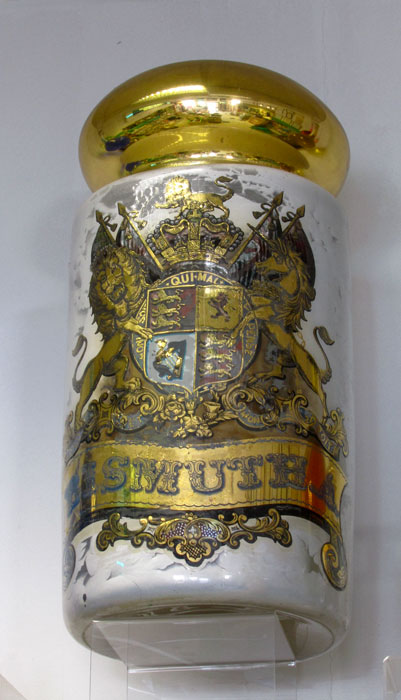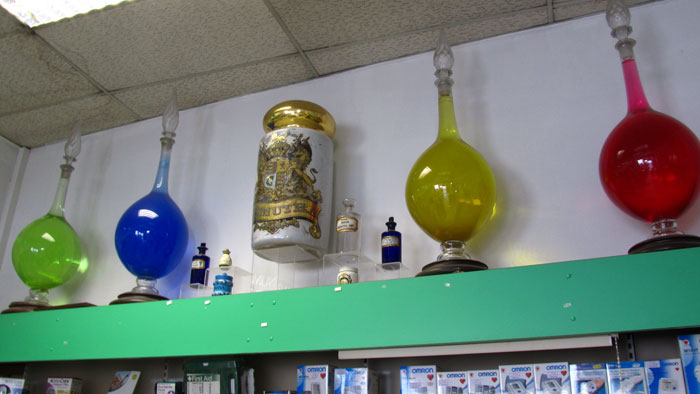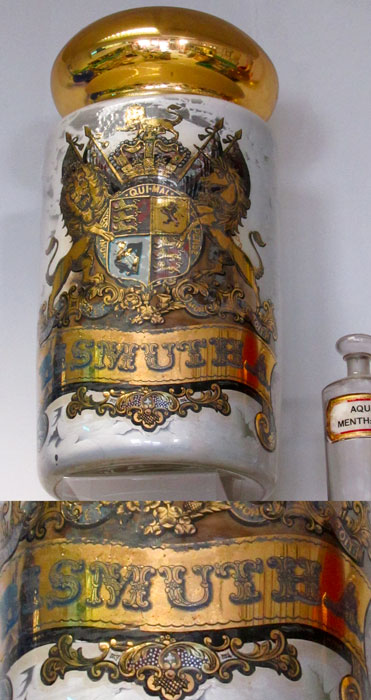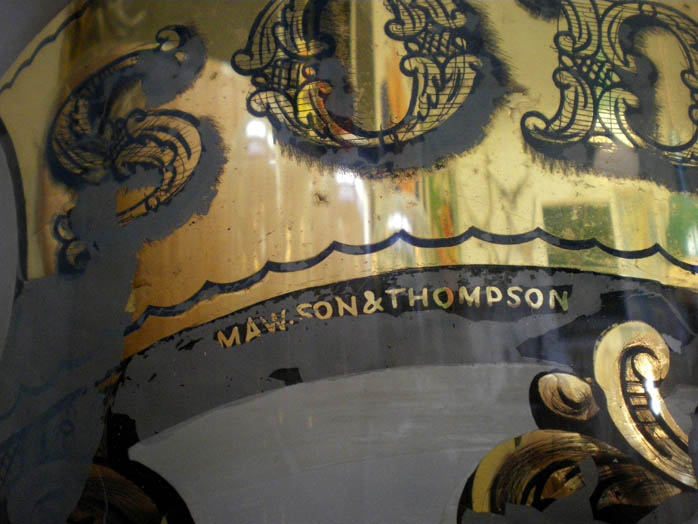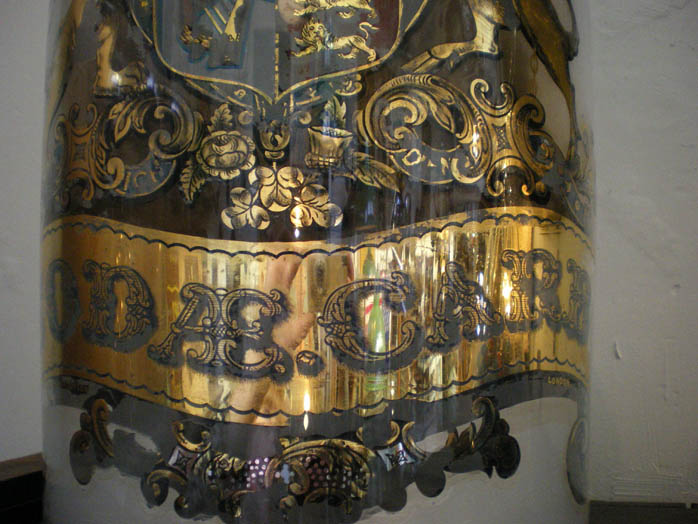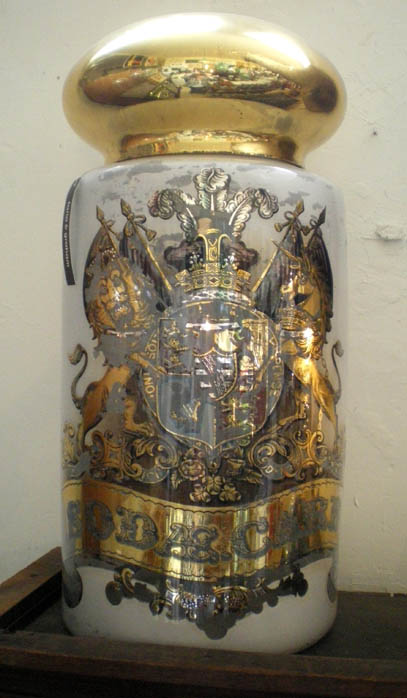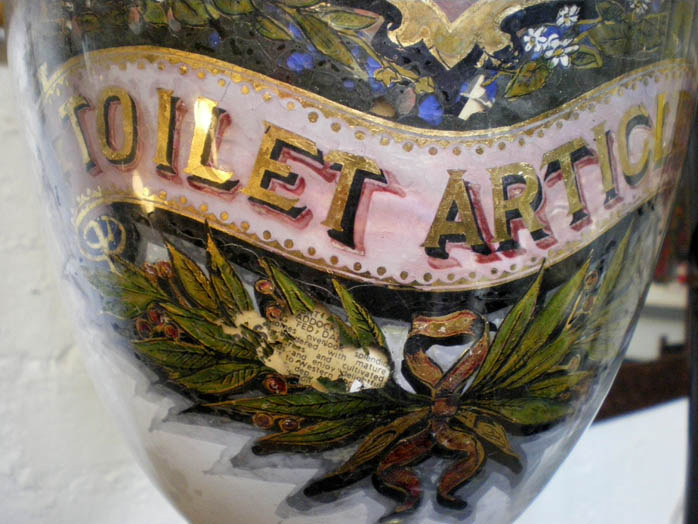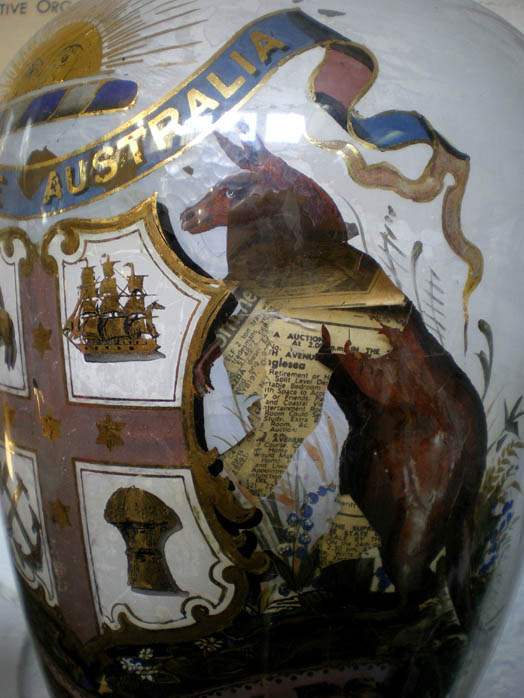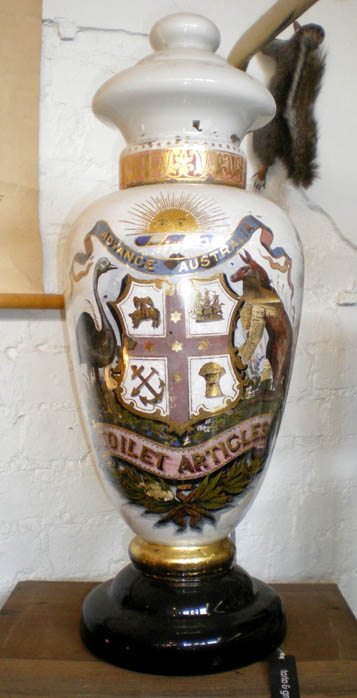
Pharmacy Jars
This is a follow up of Bruce's post about Pharmacy Jars.
The primary purpose of the jars was to store medication (powders, herbs, roots and sometimes pills) at pharmacies, physician offices and apothecaries. While the jars are no longer used for practical purposes, many are considered coveted artwork and are highly collectible. This one has an opaque glass body with a gilded glass mushroom shaped top The jar is worth £5000, but in need of some repair as you can see. I like the look of peeling paint though but I certainly do not want to get involved in restoring her.
Nice to view thats it... This chemist reminds me of Ricks Old Shop. I wonder what happened to the two he had at Fine Gold. Any one know?
Re: Pharmacy Jars
Wow, another great example.
This one seems to be more cleanly executed. Did you study it closely Dave? I'm assuming it's hand-painted, but being so neat, it makes me wonder if it is hand-done or possibly done using a decal or some other printing technique to do the black linework.
The Rhubarb jar I posted was more amatuerish in execution and when I looked at it, it was clearly hand-done. The design was complex but you could see it was all hand-painted, water gilded and hand-engraved from the inside.
It's hard to imagine that people were doing this type of thing on a daily basis producing large numbers of these display jars. But then again, there is an entire industry producing Chinese snuff bottles that are beautifully reverse painted with very fine designs.
I found this interesting explanation http://www.drugstoremuseum.com/sections ... 20&level=2 of "labels under glass". It seems with many apothecary bottles, like these smaller more common ones, the design was done on the outside and then a thin sheet of glass applied over it for protection.
Here's another great example
The description says it's done on the inside, but where the gilding is damaged, how is it possible to still see the background color behind it????
Re: Pharmacy Jars
These are beauties Bruce, I think they are on the outside also. I forgot to mention that the jar I posted was made using a water slide transfer Bruce. My first post crashed on me so I re- wrote this one.
Most of them were black lines either painted by hand or screened then slide into place. Finally handpainting and gilding was done afterwards. I suspect some were completely hand done, but up close on the Jar I posted you would need to be about 6 inchs tall with a ladder to get in and work on the detail inside this jar. Then you would be up and down that ladder to get to the rest of the work at the top, plus you would find it hard to breath in there ,would feel like a fish by the time you were finished.
The letters are perfect on this jar, there's no way you could just lean your arm in this jar and excute work like this but i may be wrong...
They were clever people those Victorians..
Most of them were black lines either painted by hand or screened then slide into place. Finally handpainting and gilding was done afterwards. I suspect some were completely hand done, but up close on the Jar I posted you would need to be about 6 inchs tall with a ladder to get in and work on the detail inside this jar. Then you would be up and down that ladder to get to the rest of the work at the top, plus you would find it hard to breath in there ,would feel like a fish by the time you were finished.
The letters are perfect on this jar, there's no way you could just lean your arm in this jar and excute work like this but i may be wrong...
They were clever people those Victorians..
Re: Pharmacy Jars
I am HIGHLY suspicious that this work was entirely done by hand on the inside of the jar. I would like to see these jars in person and REALLY get a good look.
Just on these two jars alone, the area at the top of the design where the grains of wheat have the fine pointed tufts, the curve of the neck inside and the angle that you would have to hold the brush while viewing each stroke (and what!... upside down as well!) In
my opinion (Doubting Thomas, that's me all the way) there is something missing as to exactly how these treatments were done.
Rick had at least one of these jars up high in his shop for repair, and I am certain that he never got involved in attempting to repair it although we discussed it several times.
To see these jars, and inspect where the gold is missing and the gold peeks though would tell.
I think they look like the gold is in the inside, not the outside, as there would be a shadow edge between the gold on the outside and the paint on the inside.
I think the gold and the crosshatch shading may have been applied as a decal or a transfer to the inside of the jar. In doing this some fragments of the transfer were folded or marred damaging the gold. This was ignored or accepted as part of the difficult process and the backing paint was then applied and is therefore visible where the gold was compromised.
I just find it TOO hard to believe that a person could get all those fine shading hatchmarks to be so perfect while doing them top to bottom with their wrist "crooked" in a jar.
But that's just me. And I'm sure China plate decorators were using transfers at this time, so the method was well known.
Pat (aka D. Thomas)
Just on these two jars alone, the area at the top of the design where the grains of wheat have the fine pointed tufts, the curve of the neck inside and the angle that you would have to hold the brush while viewing each stroke (and what!... upside down as well!) In
my opinion (Doubting Thomas, that's me all the way) there is something missing as to exactly how these treatments were done.
Rick had at least one of these jars up high in his shop for repair, and I am certain that he never got involved in attempting to repair it although we discussed it several times.
To see these jars, and inspect where the gold is missing and the gold peeks though would tell.
I think they look like the gold is in the inside, not the outside, as there would be a shadow edge between the gold on the outside and the paint on the inside.
I think the gold and the crosshatch shading may have been applied as a decal or a transfer to the inside of the jar. In doing this some fragments of the transfer were folded or marred damaging the gold. This was ignored or accepted as part of the difficult process and the backing paint was then applied and is therefore visible where the gold was compromised.
I just find it TOO hard to believe that a person could get all those fine shading hatchmarks to be so perfect while doing them top to bottom with their wrist "crooked" in a jar.
But that's just me. And I'm sure China plate decorators were using transfers at this time, so the method was well known.
Pat (aka D. Thomas)
Re: Pharmacy Jars
The Jar I posted Pat has all the work inside, I have seen several in chemists around Devon and the London area and all of them had graphics painted on the inside.
I will have to agree I find it hard to see them placing there arm inside and painting this amount of detail. Next time I see the jar I will look for a join. I wonder if the whole graphic was made and slide into place through the mushroom shaped head and then applied using gelatine to stick it to the glass. There may have been a process of laying the gold and paint down front ways round onto a decal sheet and then removing it the same way as a waterslide transfer .Finally painting the inside with a big old brush and some white lead paint. I suspect it was easier than we are thinking as there were lots of them... just a thought.
Re: Pharmacy Jars
I think it was easier than we think, and believe most were done as water slide transfers; that in no way is meant to diminish the quality and talent it took to complete though.
Rick literally had reams of water slide transfers in the shop under his bench, many all the same. I sometimes wonder if they were from the Palm Transfer company. Most of the sheets were of animals: dogs, sheep, horses and a few scrolls, but they were all transfers.
I'll look through the catalog and see what they offer, but it was a company that's sole product was water slide transfers. The pharmacy bottles are obviously at the top of the scale for that work, and probably achieved much through screen printed transfers and hand work.
Rick had about a half dozen bottles in a cabinet in the shop, Paul said they were on loan to Rick, and had been returned to the owner.
As far as the little men with ladders, that would mean they were done in Ireland as leprechauns didn't migrate that far down into the UK. Either that our you're working at consuming liquid in bottles, but not as fancy.
Whoever they were, they had a lot more talent, and a lot more patience than I!
For more information on water slide transfers, check the green pages under Rick's techniques. I remember Lee Littlewood wrote a how to paper which should be posted there.
Rick literally had reams of water slide transfers in the shop under his bench, many all the same. I sometimes wonder if they were from the Palm Transfer company. Most of the sheets were of animals: dogs, sheep, horses and a few scrolls, but they were all transfers.
I'll look through the catalog and see what they offer, but it was a company that's sole product was water slide transfers. The pharmacy bottles are obviously at the top of the scale for that work, and probably achieved much through screen printed transfers and hand work.
Rick had about a half dozen bottles in a cabinet in the shop, Paul said they were on loan to Rick, and had been returned to the owner.
As far as the little men with ladders, that would mean they were done in Ireland as leprechauns didn't migrate that far down into the UK. Either that our you're working at consuming liquid in bottles, but not as fancy.
Whoever they were, they had a lot more talent, and a lot more patience than I!
For more information on water slide transfers, check the green pages under Rick's techniques. I remember Lee Littlewood wrote a how to paper which should be posted there.
Re: Pharmacy Jars
Dave,
I CANNOT make myself BELIEVE that someone painted those fine details that neat and clean by reaching into a restricted opening. I will allow that the larger color background areas are most likely added inside the jar by hand.
I THINK that the black line and gold leaf were most likely painted directly in a normal fashiononto a thin layer(film) of fish glue or gum arabic and then applied to the inside of the glass.
Afterward, the exposed thin film was sponged away leaving the black lines and gold. Next would follow the infill of the banners and such, and last, the paint color to back up the inside of the entire jar.
I CANNOT make myself BELIEVE that someone painted those fine details that neat and clean by reaching into a restricted opening. I will allow that the larger color background areas are most likely added inside the jar by hand.
I THINK that the black line and gold leaf were most likely painted directly in a normal fashiononto a thin layer(film) of fish glue or gum arabic and then applied to the inside of the glass.
Afterward, the exposed thin film was sponged away leaving the black lines and gold. Next would follow the infill of the banners and such, and last, the paint color to back up the inside of the entire jar.
Re: Pharmacy Jars
Pat, I think you are right.
The French ones definitely look like decals to me. They are both identical, the cross-hatching etc. And also the Bismuth jar that started this post is too. Dave said so, plus I found more proof in it's sibling, shown below (same crest design, different word).
But the one I originally posted was definitely hand-done. I looked at it closely. Furthermore, I have a Chinese snuff bottle that has very fine details hand-painted and the neck is only about 10mm wide. They have brushes with a bent handle so it can be done with patience and a touch of masochism.
So I guess, the Victorians were using all these techniques. Sometimes transfers, sometimes hand-painted accordingly to the needs of the job.
I found some further info and a lucky find...a couple of jars for sale at a dealer in my own city! I will go there next week and take a close look for myself and try to see how they were done. They sent me some photos. I've had to shrink them for this board, but here are some shots, and the text of her email to me.
-------
They are both for sale. The Toilet Articles jar is $5500. It is
pre-Federation and came from the estate of an apothecary jar collector.
Apart from that I'm afraid I can't tell you much else. Unfortunately it has
been stuffed with newspaper which has not helped its flaky innards.
The Soda Carb jar is $3200 and sadly has suffered more paint loss than the
other one. Still very lovely though. It is made by Mawson & Thompson who
were London makers of medical related things, but I don't know any more
about them unfortunately.
A recent customer who is a keen collector of all things medical told me that
all these jars were made in England to whatever specification and shipped
over here. Hence the Australia-themed ones etc. It's amazing to think of
the process involved 100 or more years ago of ordering one, having it made,
and waiting for it to get delivered! They would have been quite an
investment.
The French ones definitely look like decals to me. They are both identical, the cross-hatching etc. And also the Bismuth jar that started this post is too. Dave said so, plus I found more proof in it's sibling, shown below (same crest design, different word).
But the one I originally posted was definitely hand-done. I looked at it closely. Furthermore, I have a Chinese snuff bottle that has very fine details hand-painted and the neck is only about 10mm wide. They have brushes with a bent handle so it can be done with patience and a touch of masochism.
So I guess, the Victorians were using all these techniques. Sometimes transfers, sometimes hand-painted accordingly to the needs of the job.
I found some further info and a lucky find...a couple of jars for sale at a dealer in my own city! I will go there next week and take a close look for myself and try to see how they were done. They sent me some photos. I've had to shrink them for this board, but here are some shots, and the text of her email to me.
-------
They are both for sale. The Toilet Articles jar is $5500. It is
pre-Federation and came from the estate of an apothecary jar collector.
Apart from that I'm afraid I can't tell you much else. Unfortunately it has
been stuffed with newspaper which has not helped its flaky innards.
The Soda Carb jar is $3200 and sadly has suffered more paint loss than the
other one. Still very lovely though. It is made by Mawson & Thompson who
were London makers of medical related things, but I don't know any more
about them unfortunately.
A recent customer who is a keen collector of all things medical told me that
all these jars were made in England to whatever specification and shipped
over here. Hence the Australia-themed ones etc. It's amazing to think of
the process involved 100 or more years ago of ordering one, having it made,
and waiting for it to get delivered! They would have been quite an
investment.